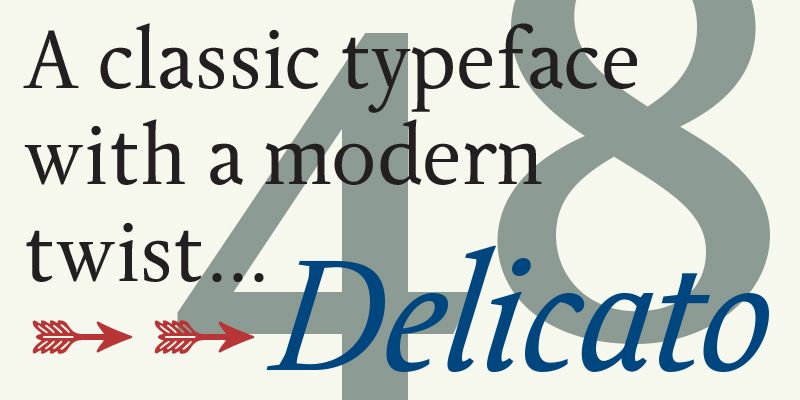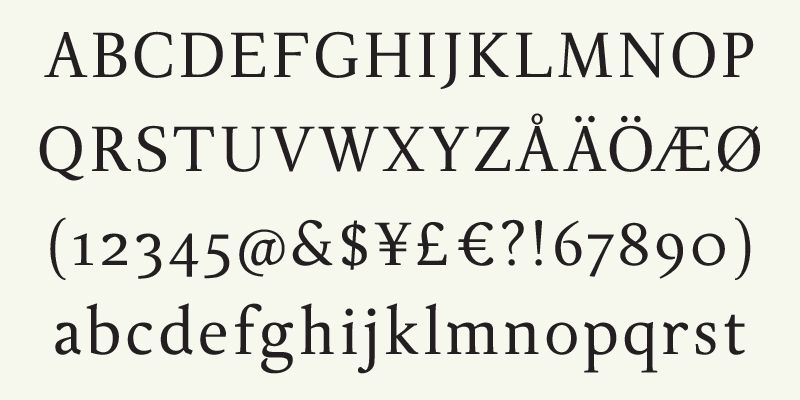
In many aspects, built in a traditional way. Still, some modern details have been implemented which classic designs sometimes lack. The prime goal was to make a strong text font for books and longer texts in general.